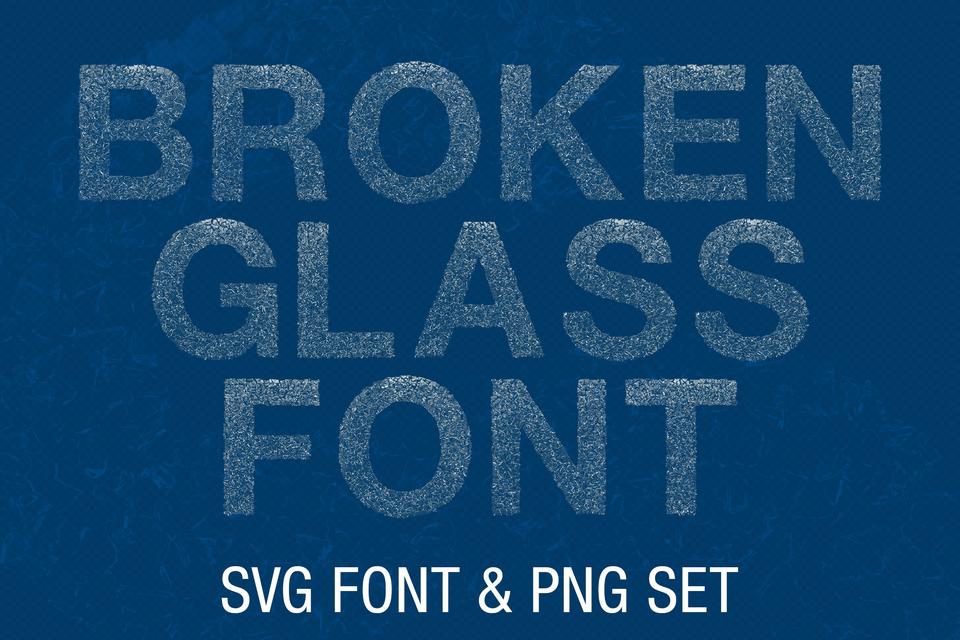
Broken Glass Font & PNG Lettering Set
3D lettering set of broken glass alphabet is a digital font that contains a set of letters and numbers designed to look like they are made of broken glass. The font is available in PNG and color SVG formats, as well as OTF (OpenType Font) format, which is a common format for fonts that can be used on both Mac and Windows computers. The letters and numbers in the font are three-dimensional, giving them a realistic, broken glass appearance. They can be used for a variety of purposes, such as creating graphics for social media posts, website headers, or advertisements. The font may be used with a graphic design software program, such as Adobe Photoshop or Illustrator, or it can be installed on a computer and used in any text editing program.
MS Broken Glass SVG Font. A high definition OpenType-SVG font built-in 3D. Contains uppercase characters, numerals and basic punctuation. (Draw height roughly 600 pixels). All letters and glyphs that comprises this font you can see on the preview.
Uppercase Letters : A B C Ç D E F G Ğ H I İ J L L M N O Ö P Q R S Ş T U Ü V W X Y Z
Lowercase Letters : a b c ç d e f g ğ h i İ j l l m n o ö p q r s ş t u ü v w x y z
Numbers : 0 1 2 3 4 5 6 7 8 9
Others : ! ? $ € & % + - . @ ( ) , : ; / _ - = ' *